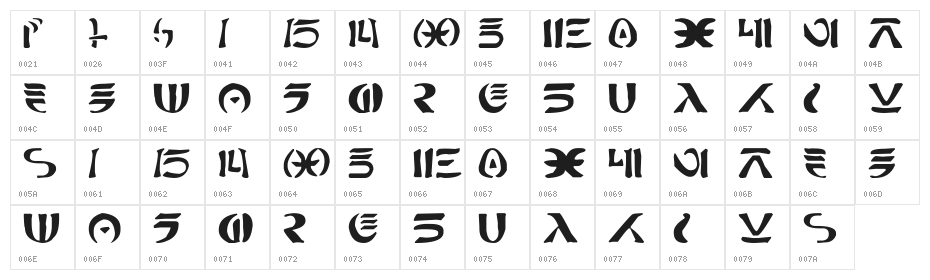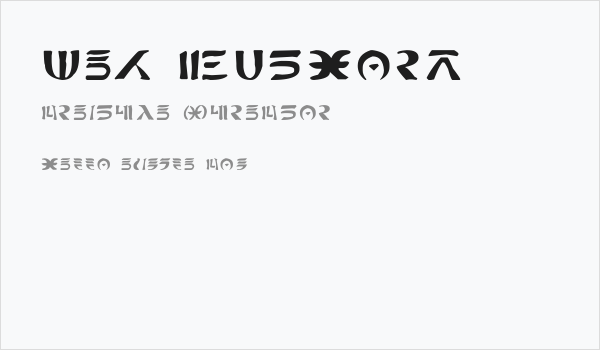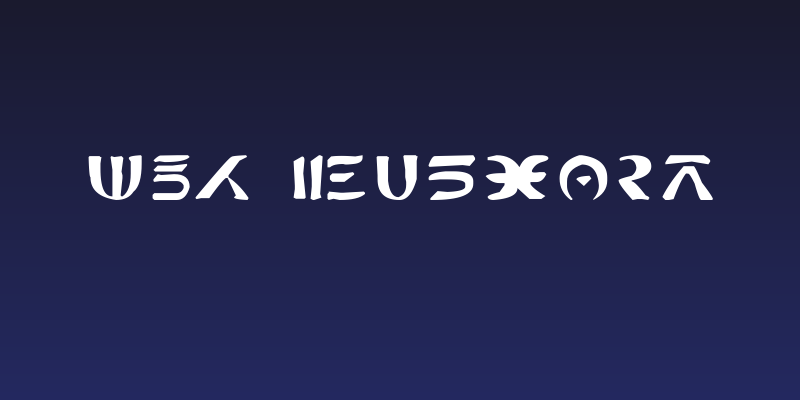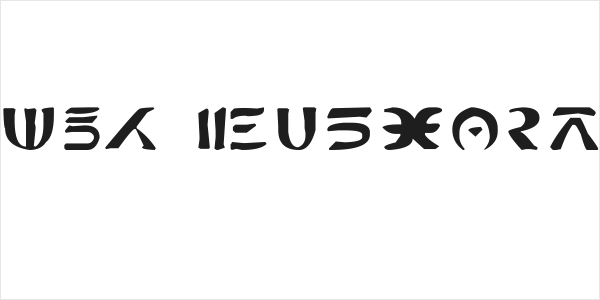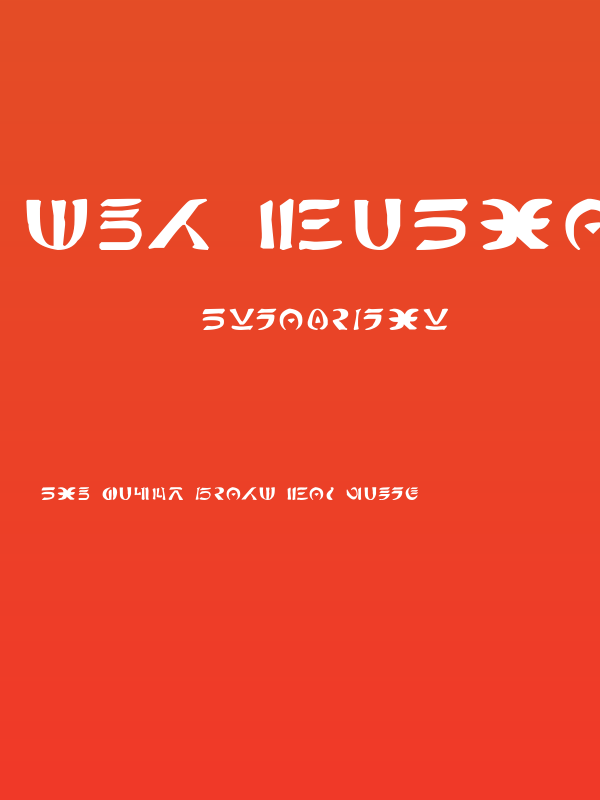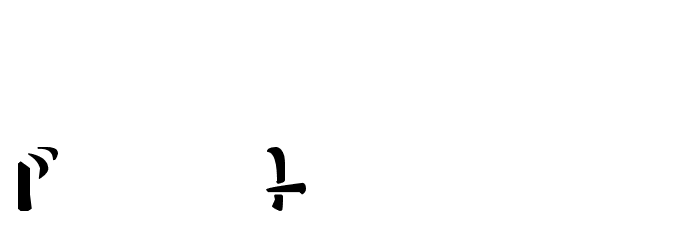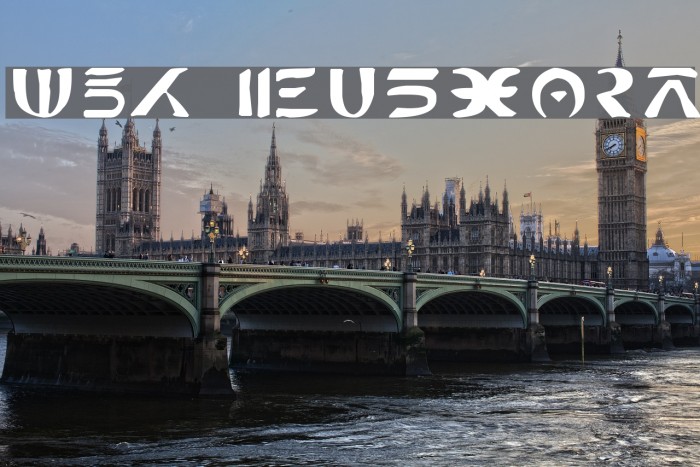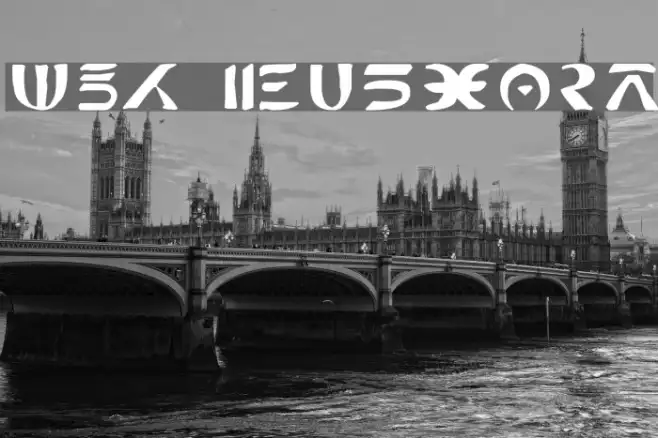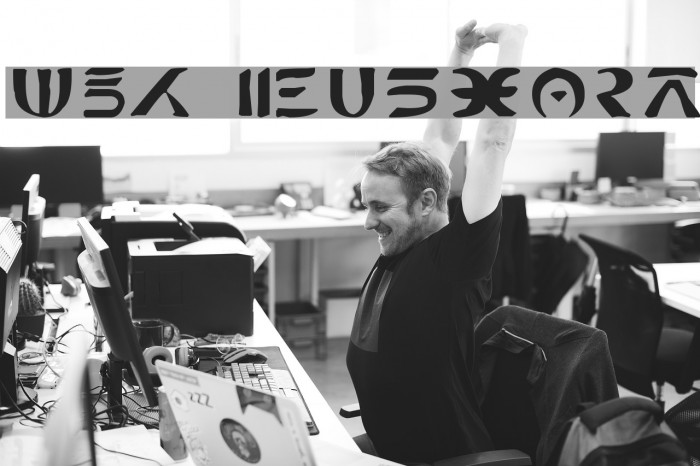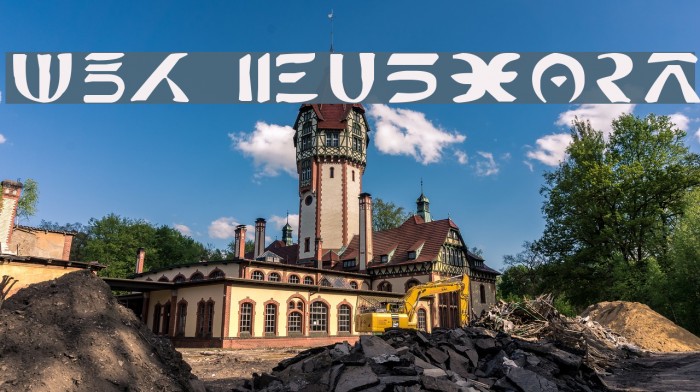
New Futhork Font
New Futhork Description
This font features a unique and abstract design, reminiscent of ancient runic symbols. Each character is crafted with a bold, geometric style that incorporates sharp angles and curves, creating a sense of mystery and intrigue. The letters are distinct and stylized, making them stand out with their artistic flair. The font's unconventional shapes and forms give it a futuristic and otherworldly appearance, suitable for creative and avant-garde projects. Its bold presence and striking visual impact make it ideal for designs that aim to capture attention and convey a sense of enigma or ancient wisdom.
| Overall Style | Futuristic, Mysterious |
| Proposed Projects | Ideal for fantasy-themed designs, video game graphics, sci-fi book covers, and creative posters. |